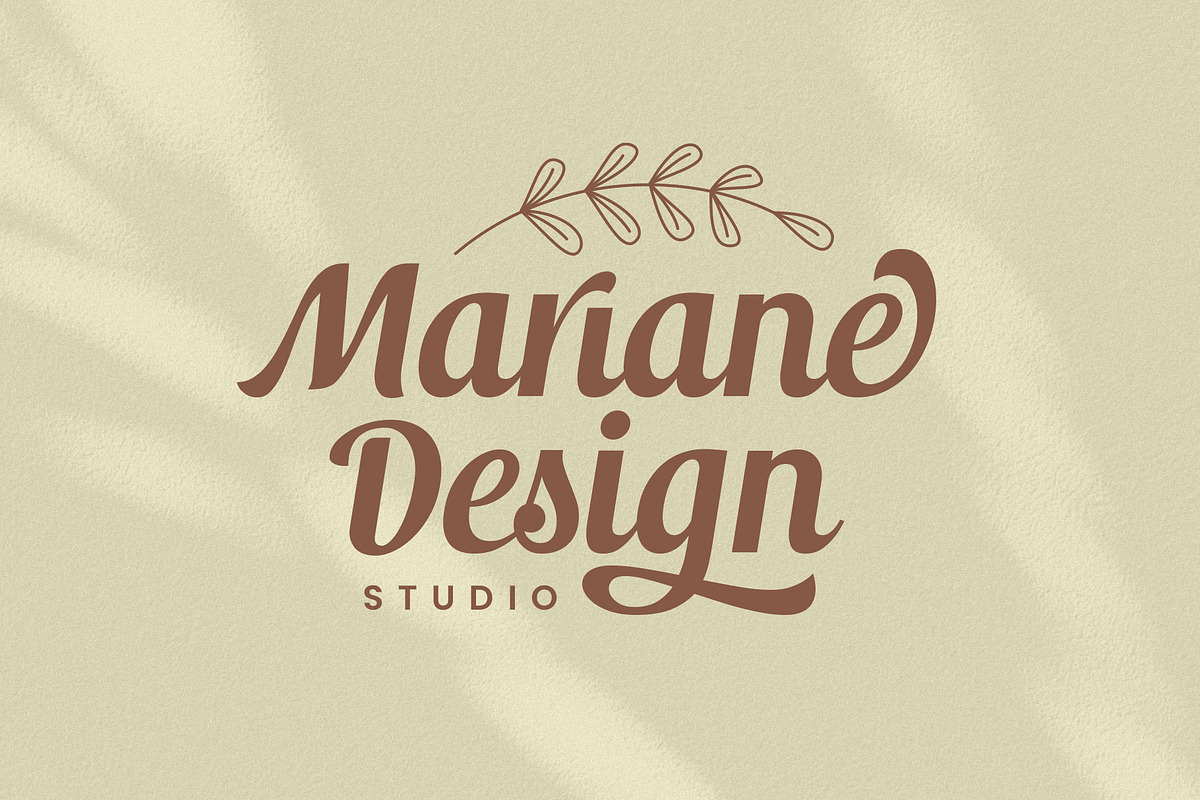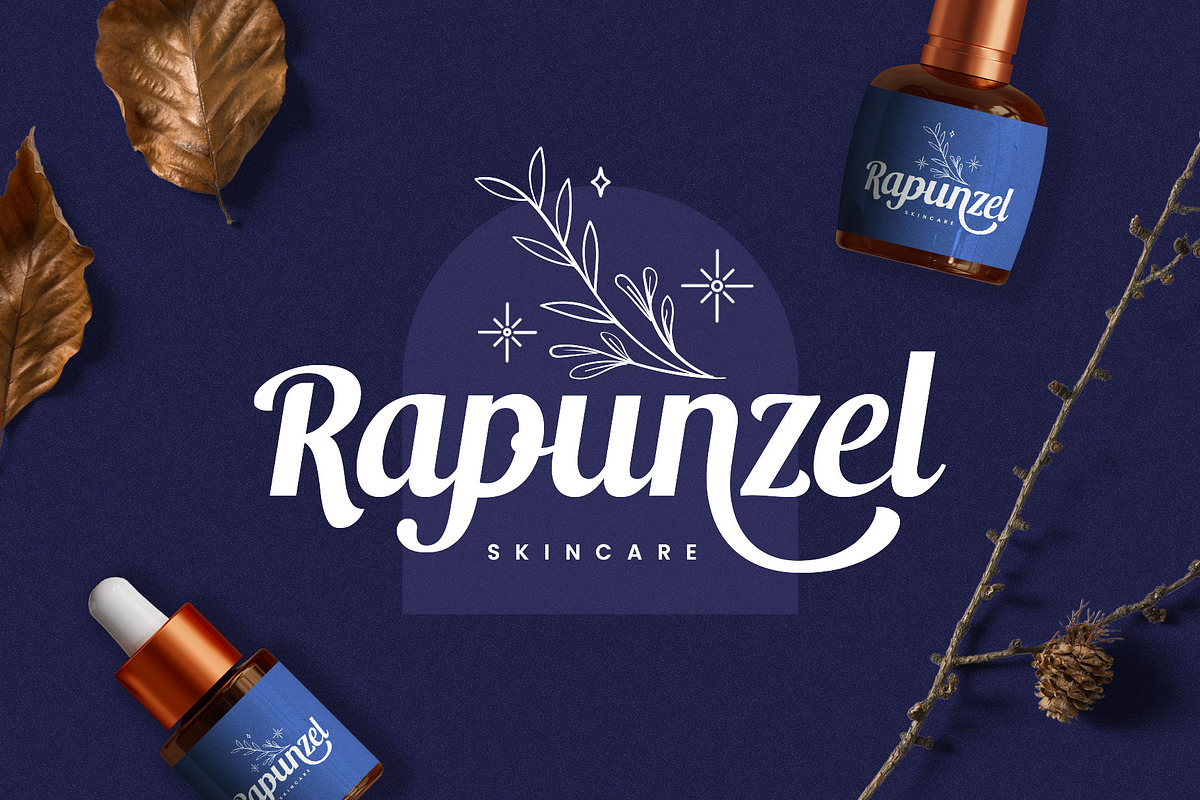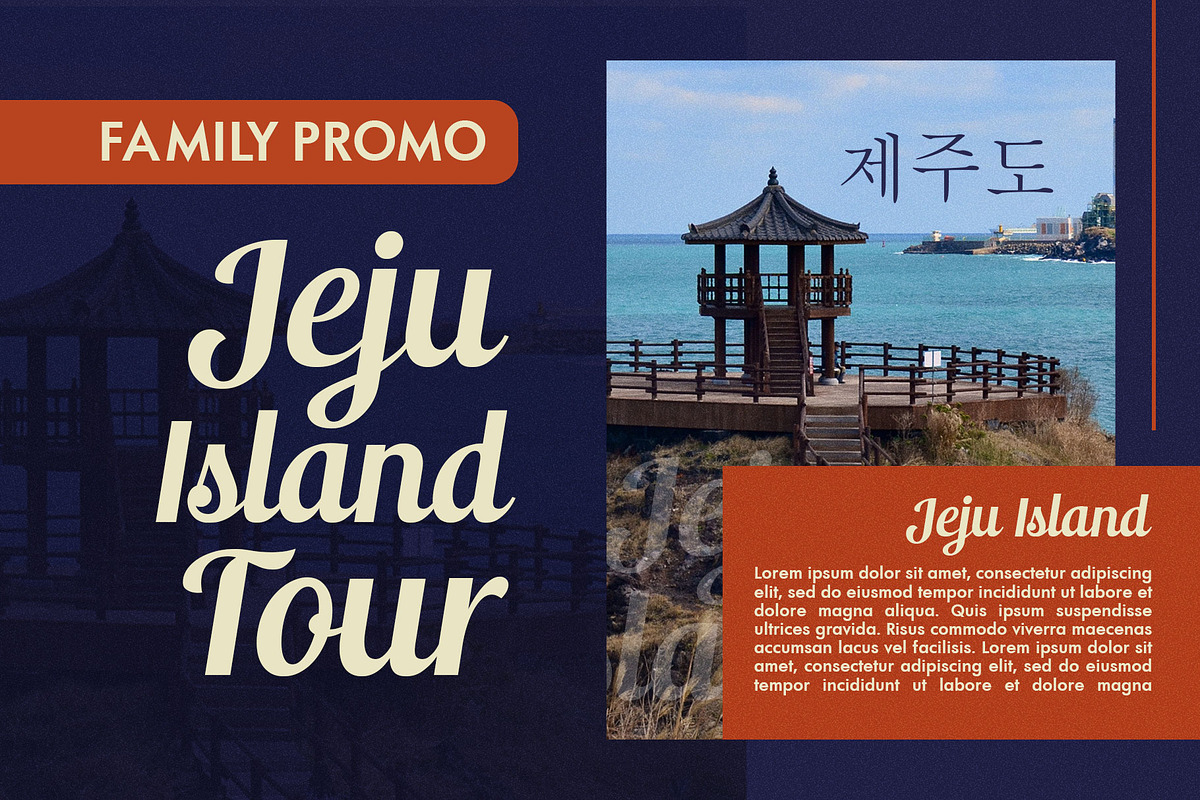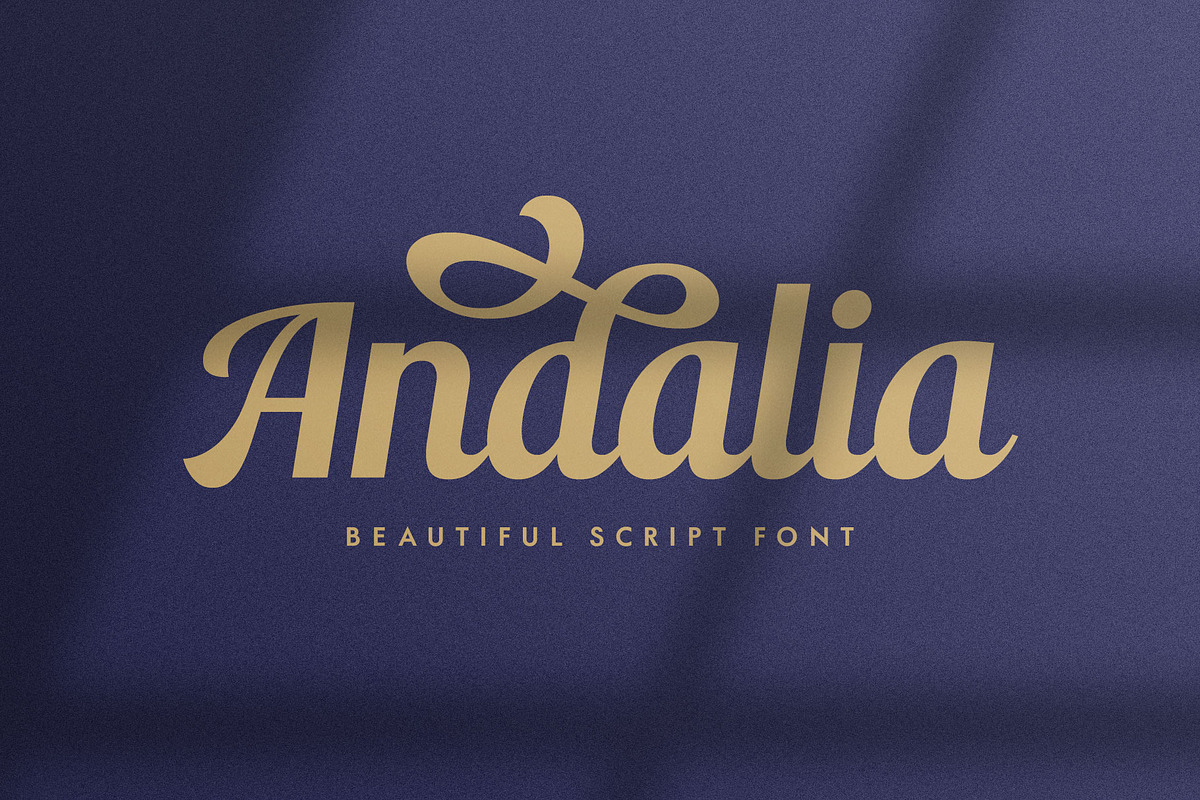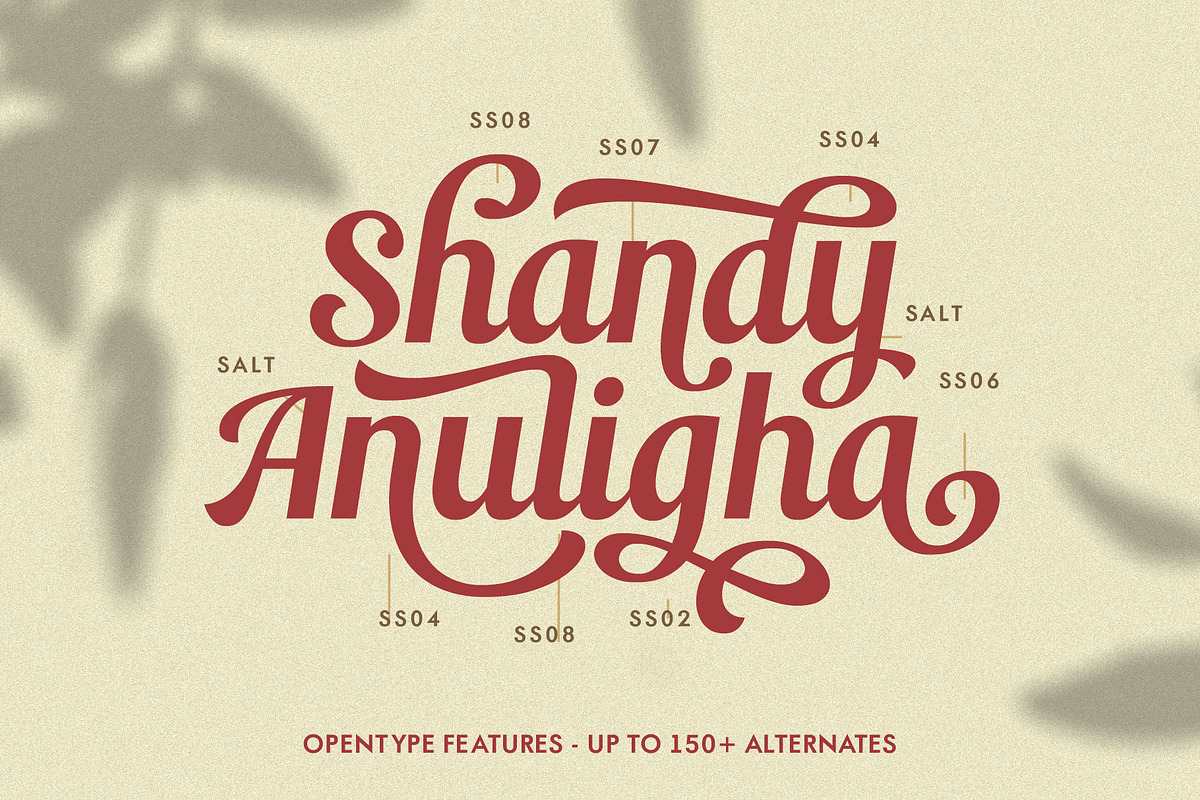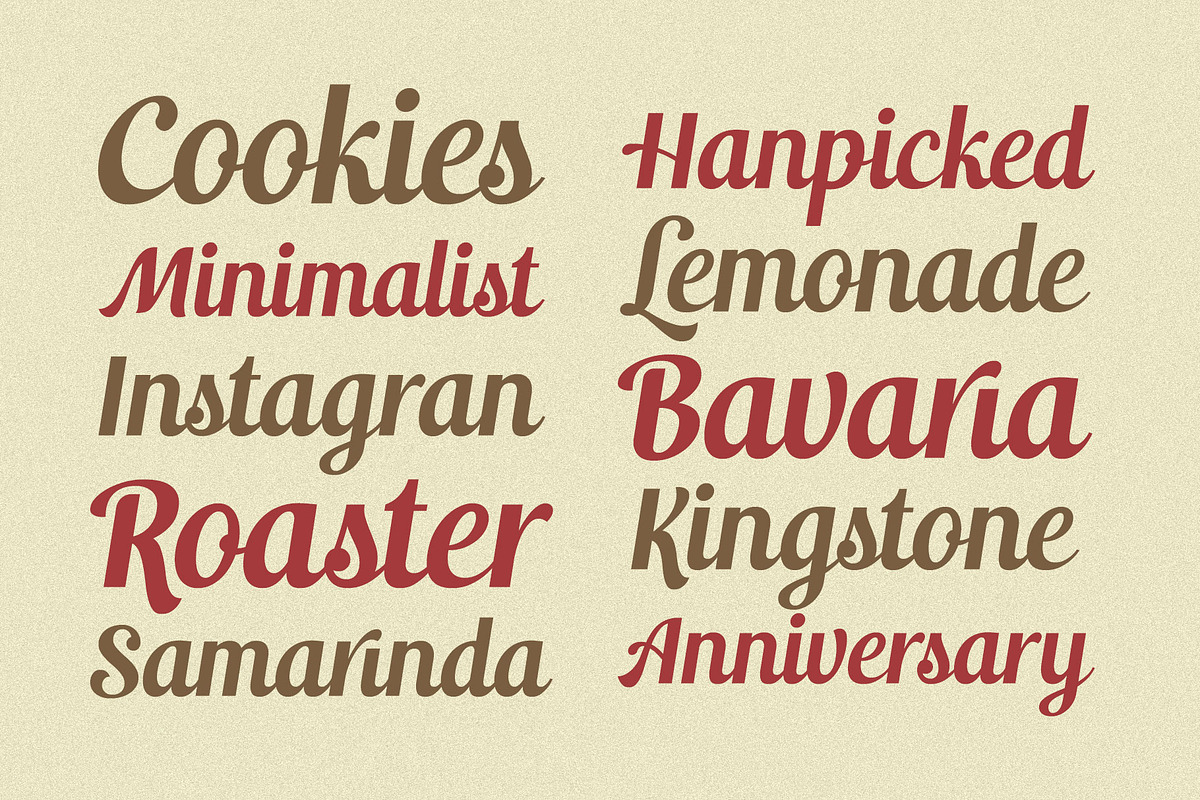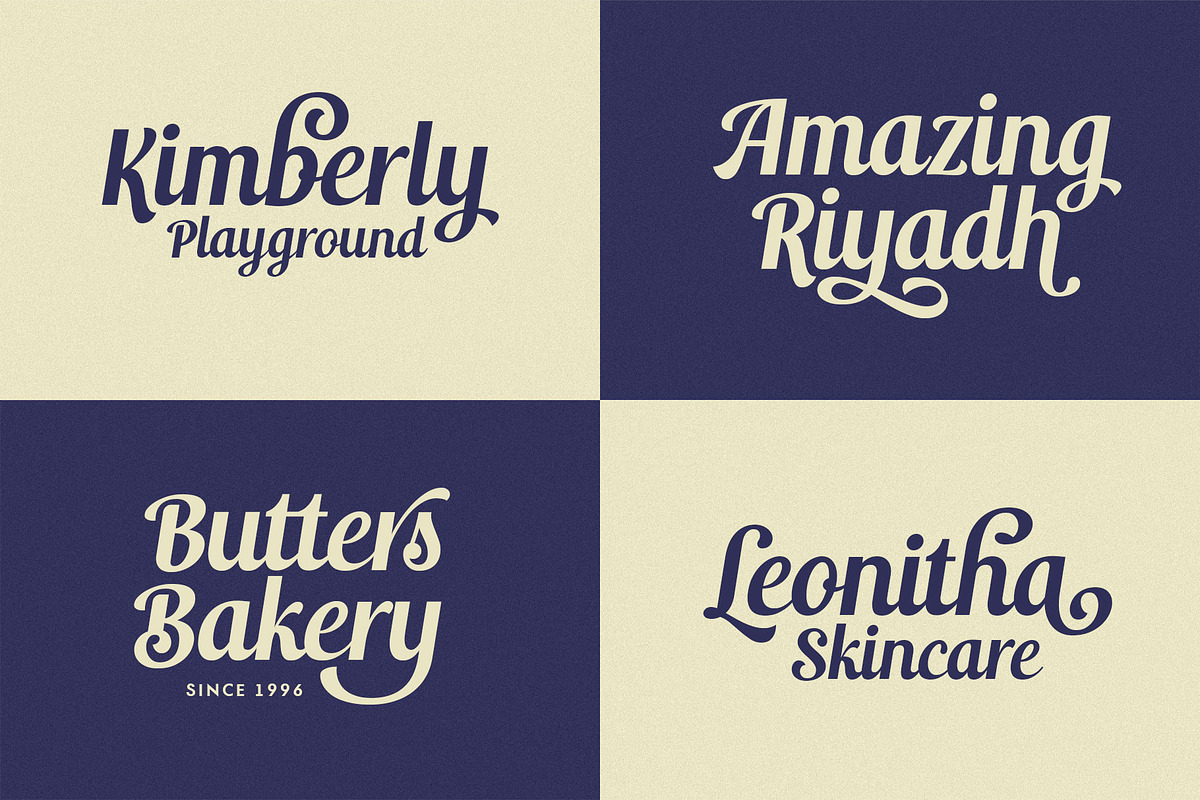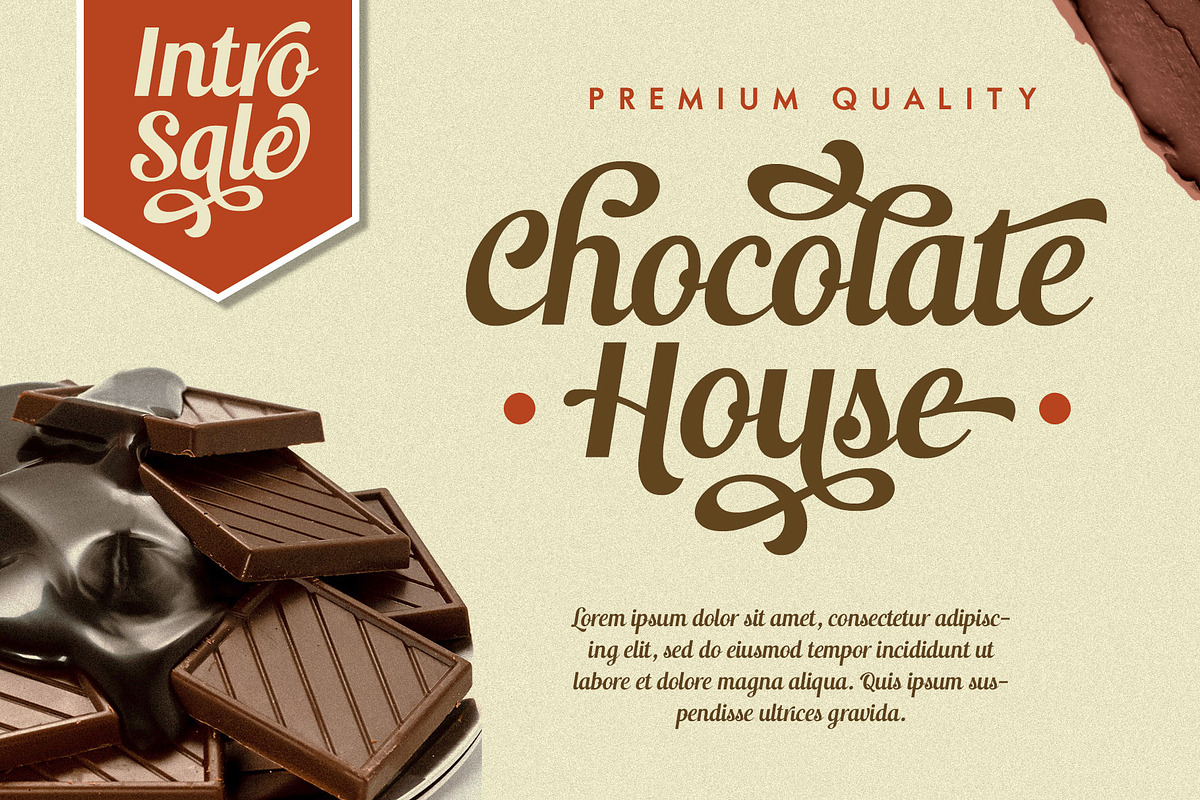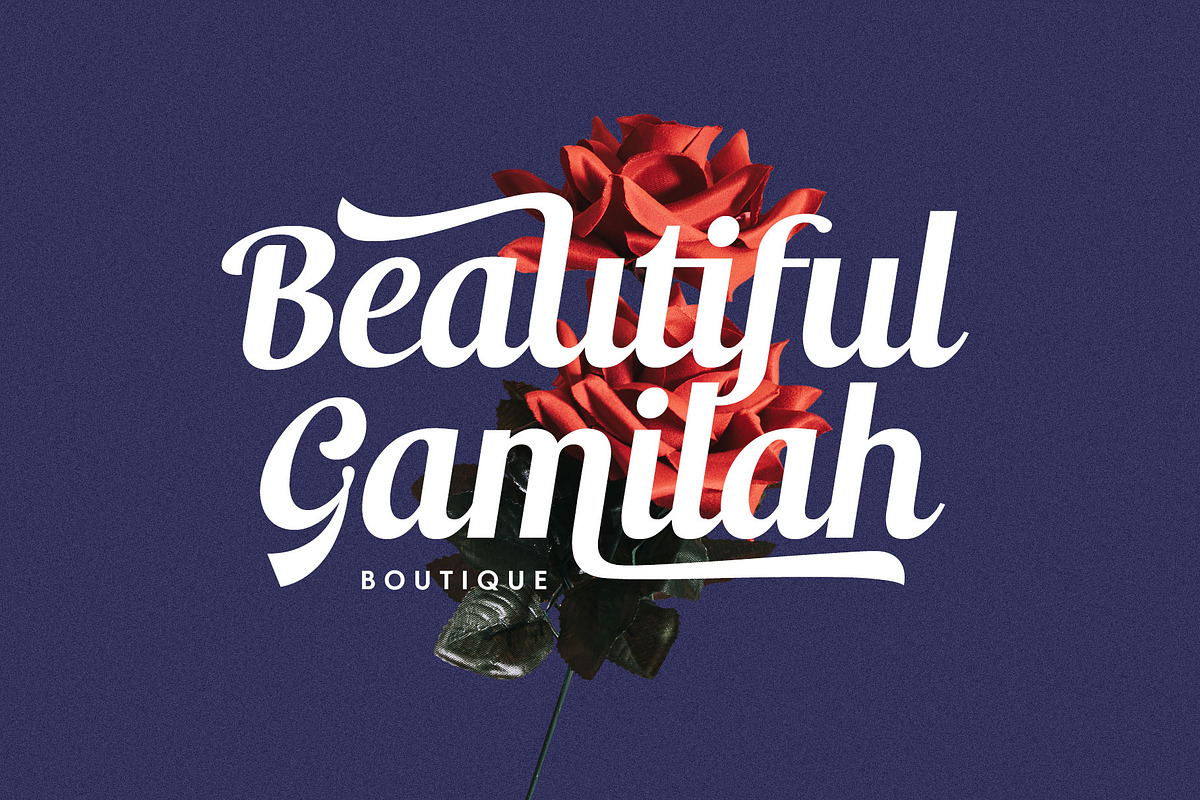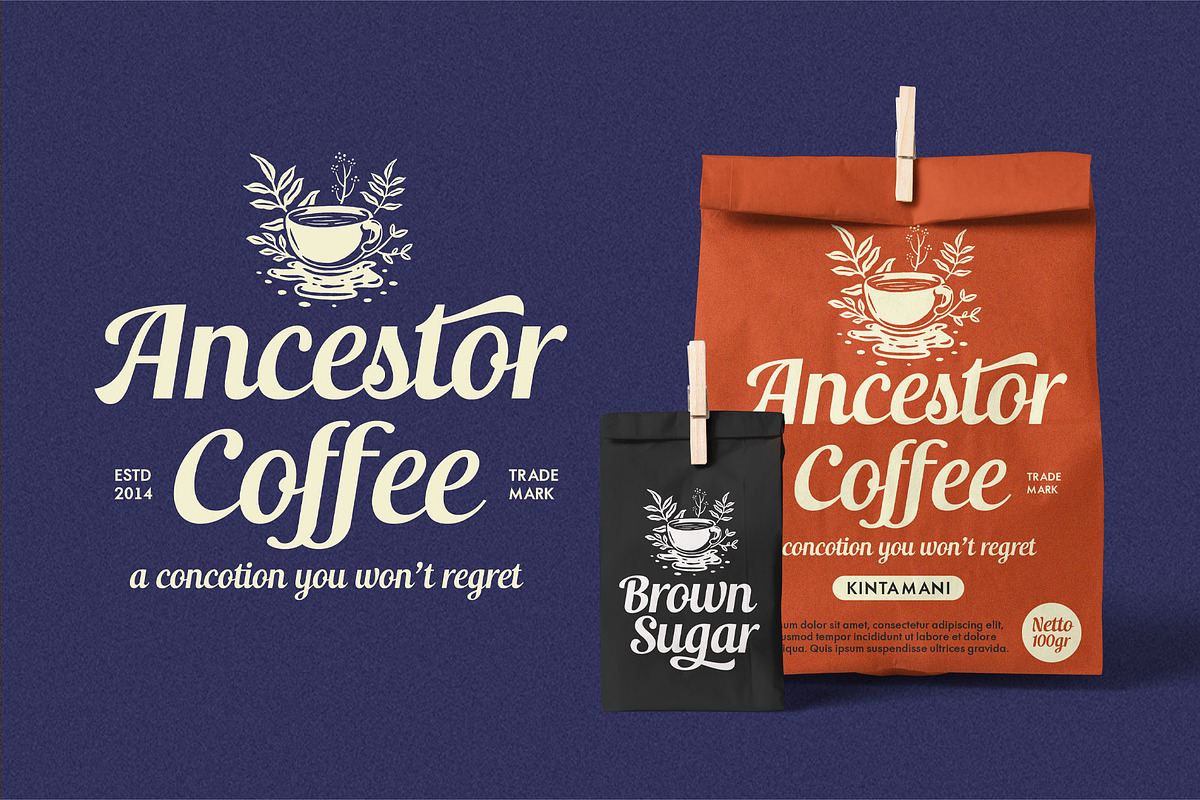
Andalia - Casual Script
Introducing Andalia, the romantic script typeface, that is modern, casual, and elegant. Created with slanted strokes, and a clean ornament that visualizes the more dramatic typographic looks.
Andalia is ready to play with you. It comes with hundreds of alternates characters and some ligatures that you can mix and match. This font was created especially for food branding or advertising, and fashion.
- Numbers, symbols, & punctuation.
- Accented characters (Multilingual)
- Stylistic alternates
- Stylistic Set 01-11